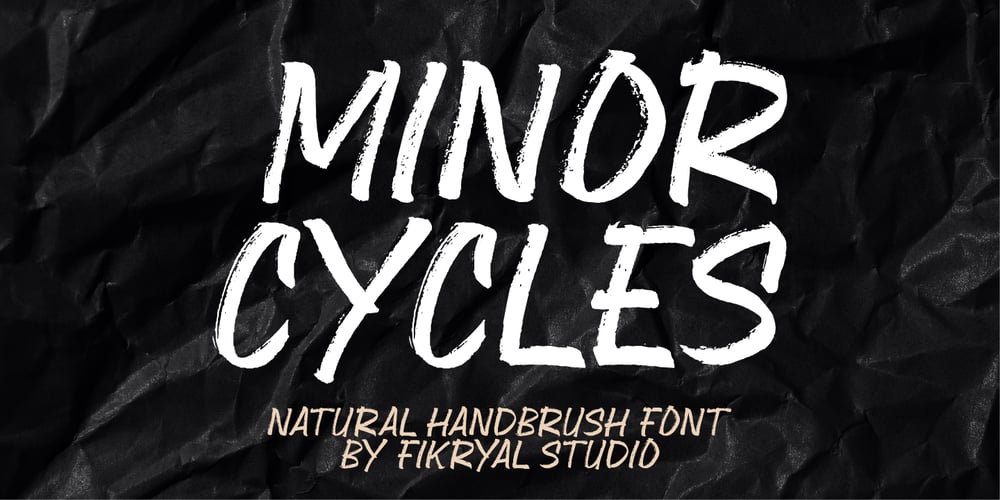
Minor Cycles Font Family was designed by Muhammad Fikry and published by Fikryal. Minor Cycles contains 1 styles and family package options. Introducing Minor Cycles – Natural Handbrush Font is a unique display font that offers an organic and natural touch to your designs. Designed like a hand brush, each letter is imbued with the delicacy and dexterity that can only be achieved from manual works of art. This font creates a relaxed yet classy feel, perfect for projects that require a personal touch and warmth.Equipped with a capital letter style, “Minor Cycles” gives a unique impression to the appearance of your design. Each letter looks like it was painted by hand, adding unique dimension and character to every word you create. So, this font is suitable for various design purposes, from logos, and titles, to digital signatures.If you are looking for a font that combines a natural feel with a modern touch, “Minor Cycles” is a great choice. Add it to your font collection immediately and let your creativity flourish with the personal touch this font offers.If you have any questions please don’t hesitate to contact mefollow my Instagram: fkryallThank you